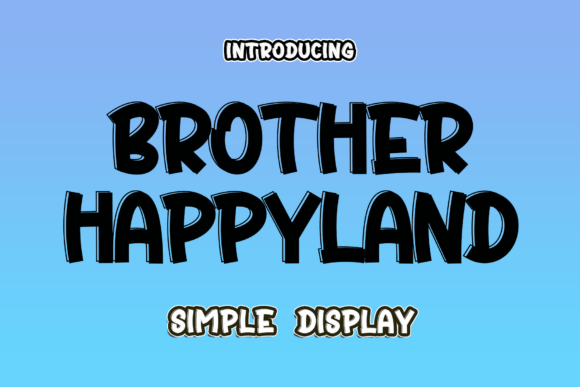
Unlocking Joy with the Perfect Font: Brother Happyland Font
Who hasn’t felt the excitement of brainstorming a new project, eager to bring a fresh idea to life? The blank page stares back, waiting for that perfect spark that will set your creative juices flowing. For designers, this moment is a thrill, but also a challenge. It’s where the right tools can make all the difference. Enter the Brother Happyland Font, a delightful display font designed to infuse any project with a sense of fun and joy.
With its chunky letterforms and playful vibe, the Brother Happyland Font is a valuable addition to any designer’s toolkit. Perfect for children’s books, games, classroom posters, and joyful branding, this font is sure to bring a smile to your audience’s faces. Its clean style and cartoonish character make it easy to read while keeping things lighthearted and engaging.
Brother Happyland Font Key Features
- Font Family: Brother Happyland Font is a unique, hand-drawn font family designed to evoke a sense of warmth and playfulness.
- Unique Characteristics: Brother Happyland Font features a distinctive, hand-drawn style with irregular letterforms and subtle imperfections, giving it a charming, human touch.
- Characters and Glyphs: The font family includes a wide range of characters and glyphs, including Latin, Cyrillic, and Greek alphabets, as well as punctuation marks and symbols.
Brother Happyland Font Review
When I first laid eyes on Brother Happyland Font, I was immediately drawn to its playful and whimsical feel ✨. The font is perfect for projects that require a sense of innocence and charm. I love how it works well for children’s books, educational materials, and even wedding invitations. The font’s friendly personality shines through in every letter, making it an excellent choice for any project that needs a warm and inviting tone ✨.
However, there are a few limitations to consider ⚠️. The font is not suitable for high-end corporate projects or any design that requires a sophisticated and modern look. Additionally, the font’s limited character set can be a challenge for designers who need to work with specific symbols or characters ⚠️.
In terms of overall impression, I would say that Brother Happyland Font is a solid choice for designers who are looking for a fun and playful font. While it may not be suitable for every project, it’s perfect for designs that require a touch of whimsy and charm ✨.
- Perfect for children’s books, educational materials, and wedding invitations
- Playful and whimsical feel
- Limited character set
- Not suitable for high-end corporate projects
- Available in various font styles
- Use it for playful and creative projects.
- Pair it with bright and bold colors to make your design stand out.
Some common use cases for Brother Happyland Font include:
- Children’s books and educational materials.
- Party invitations and event marketing materials.
- Brand identity and logo design.